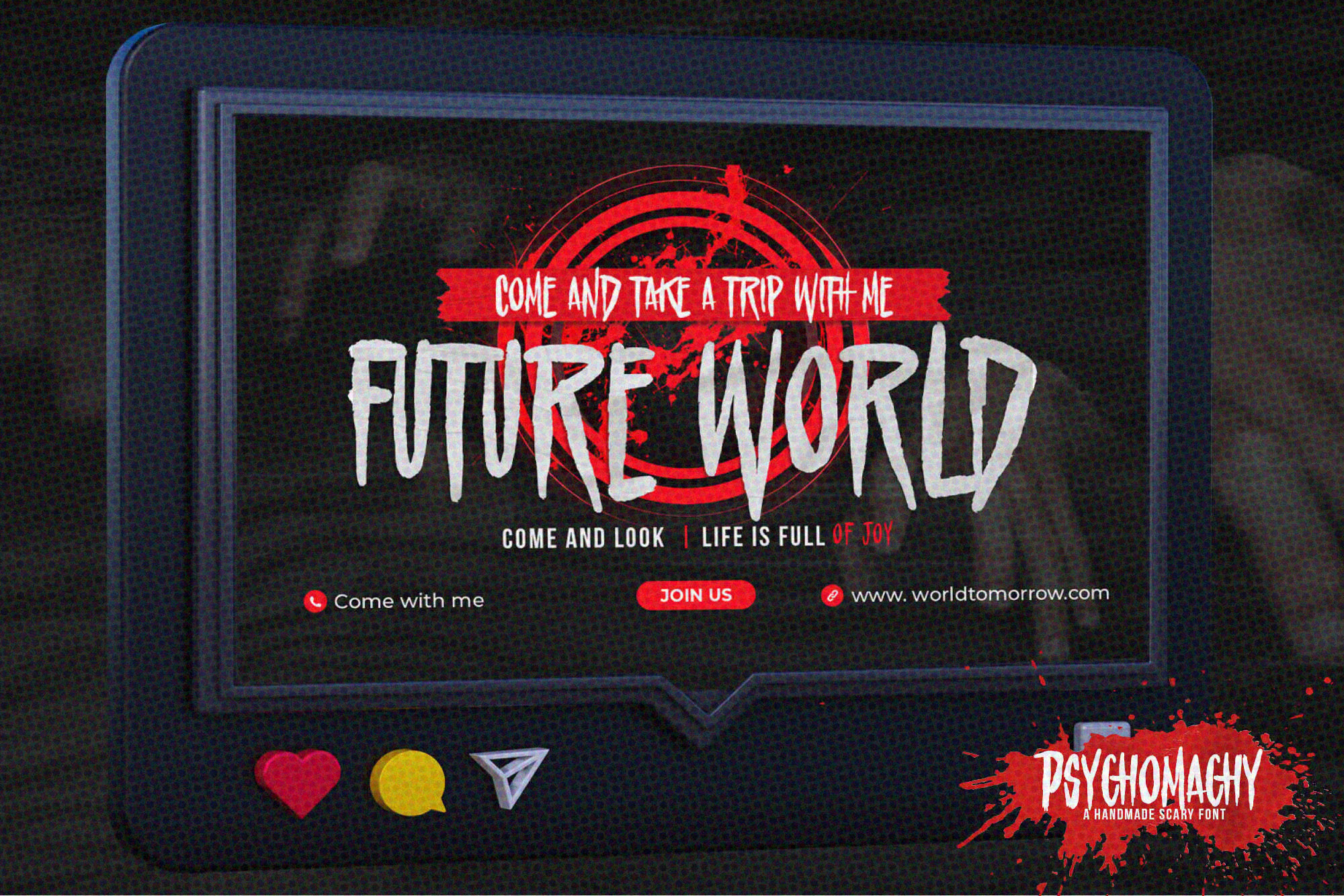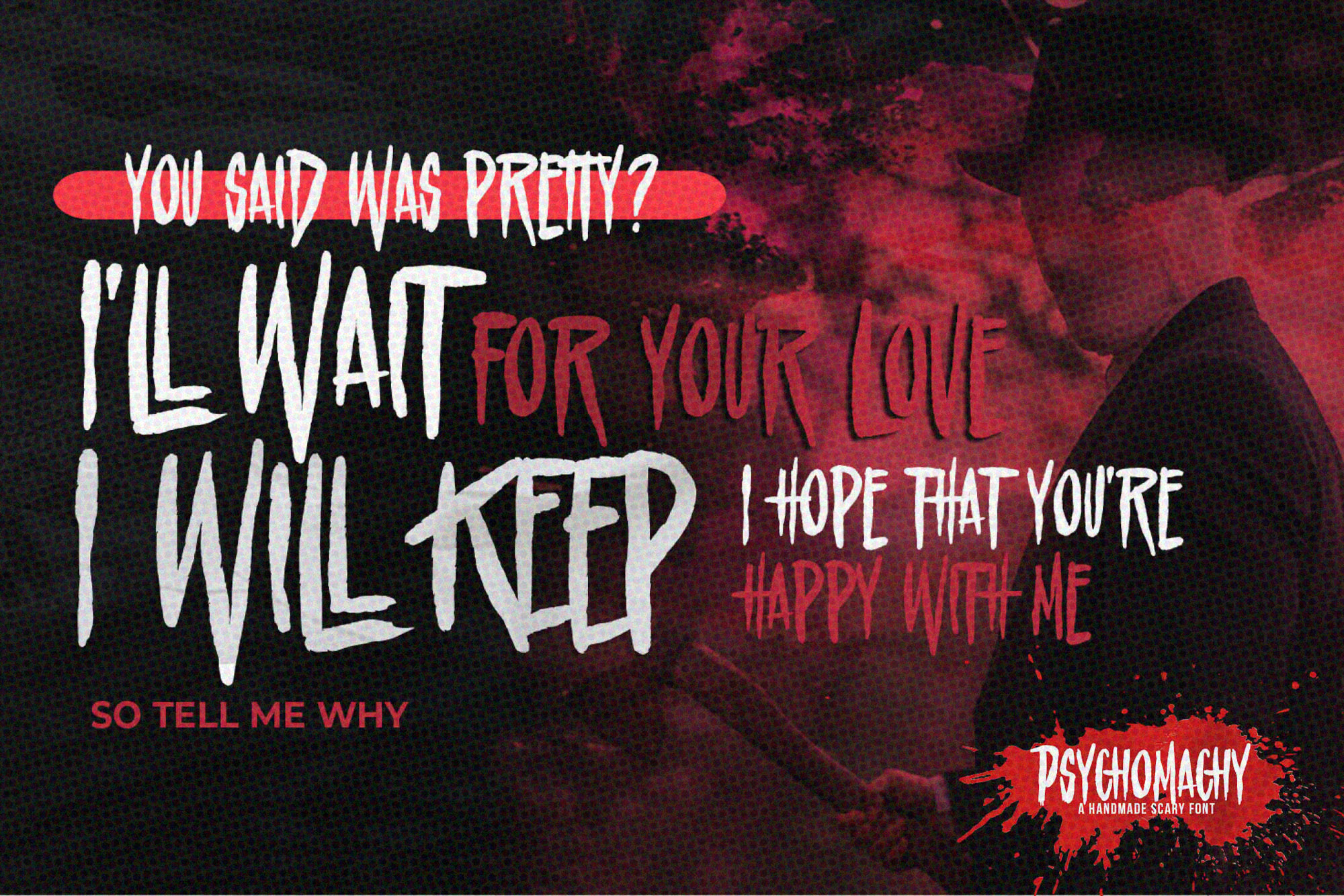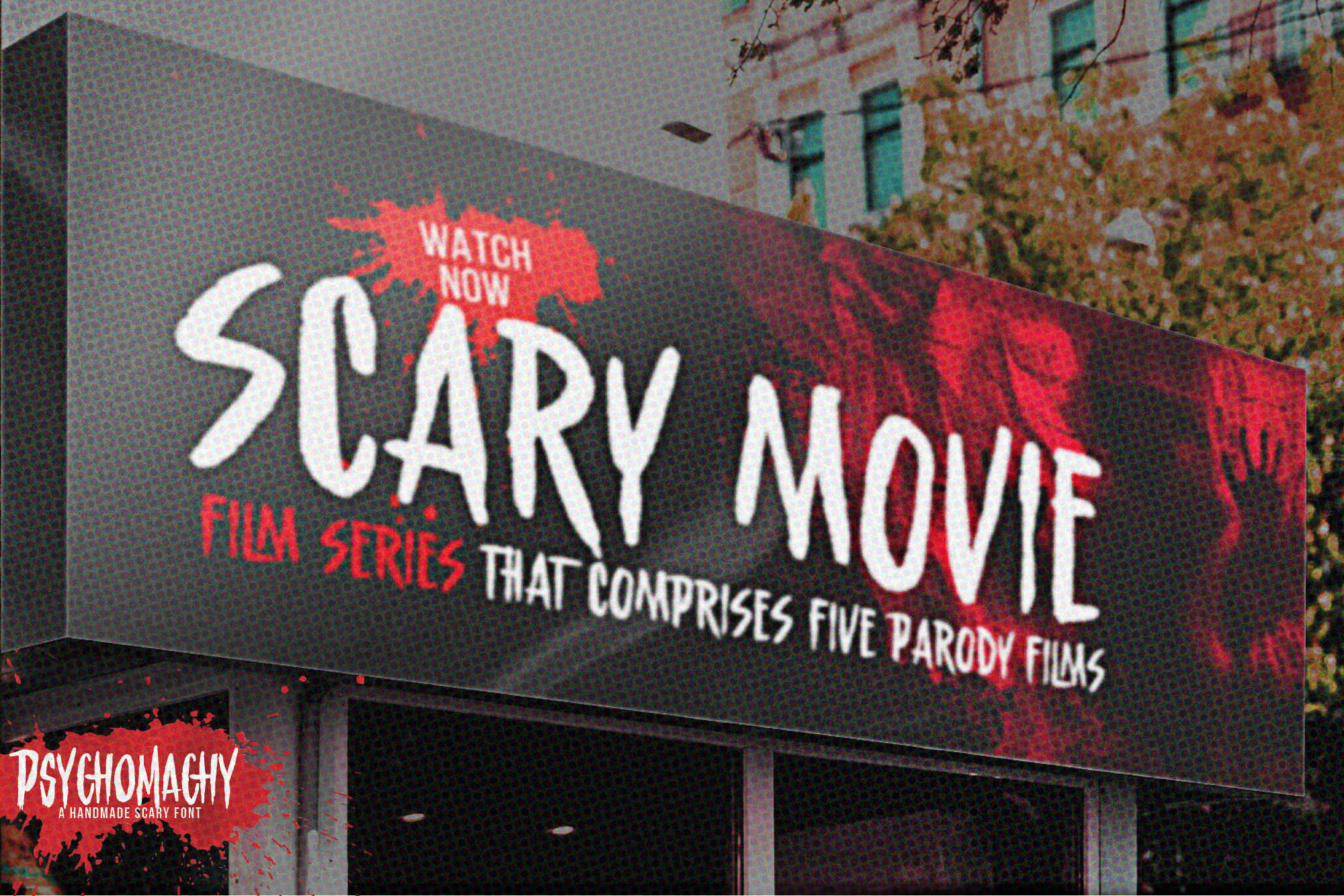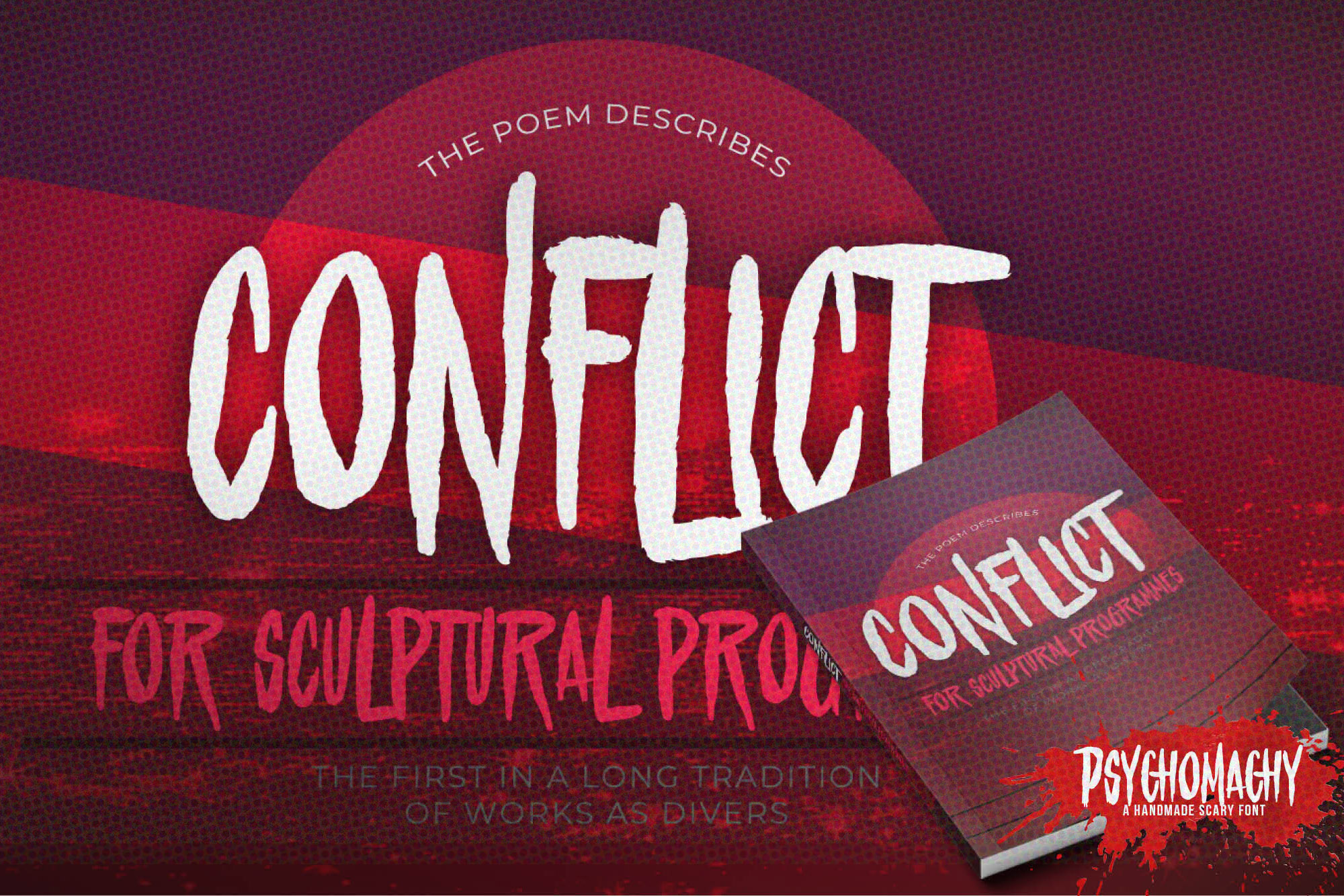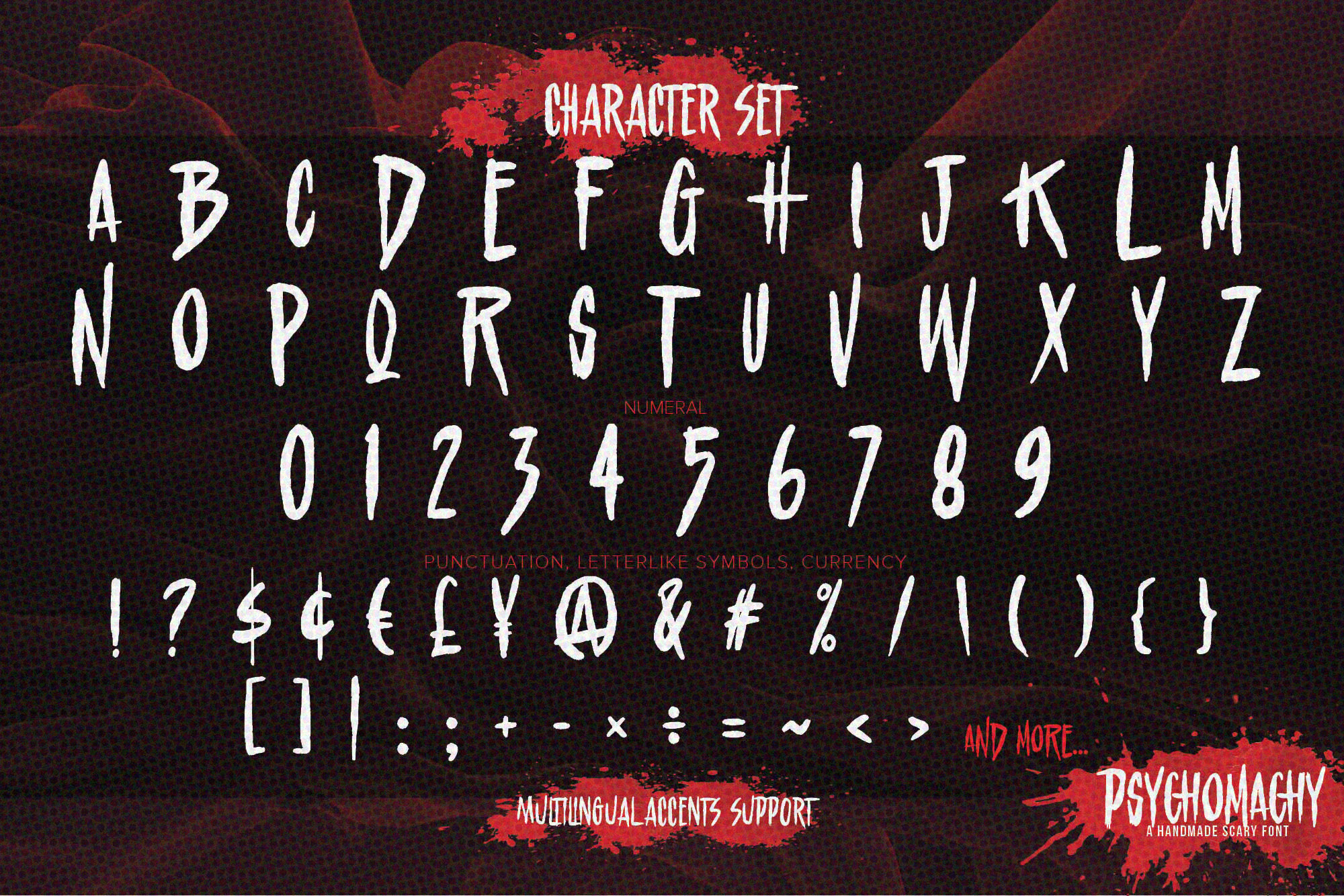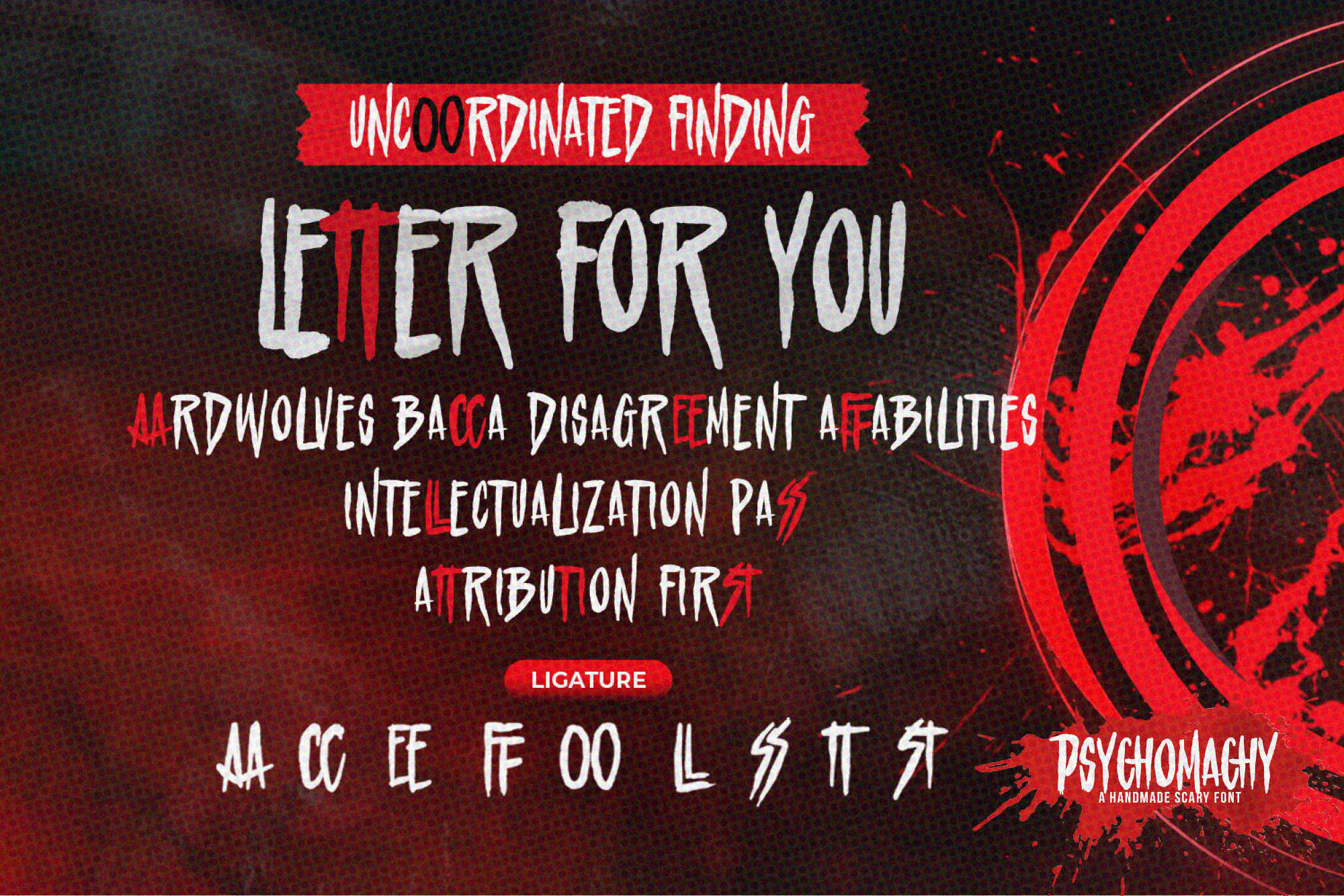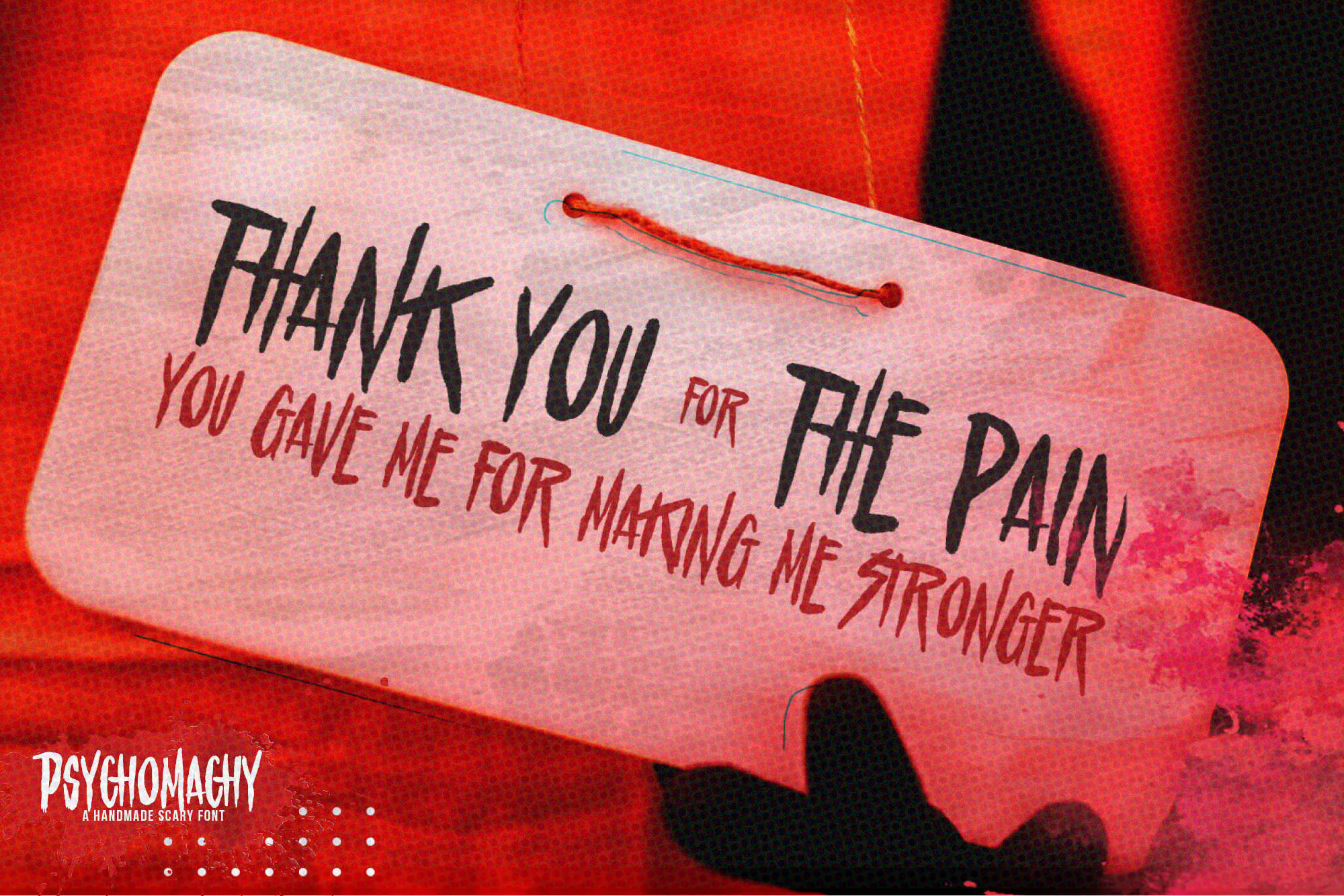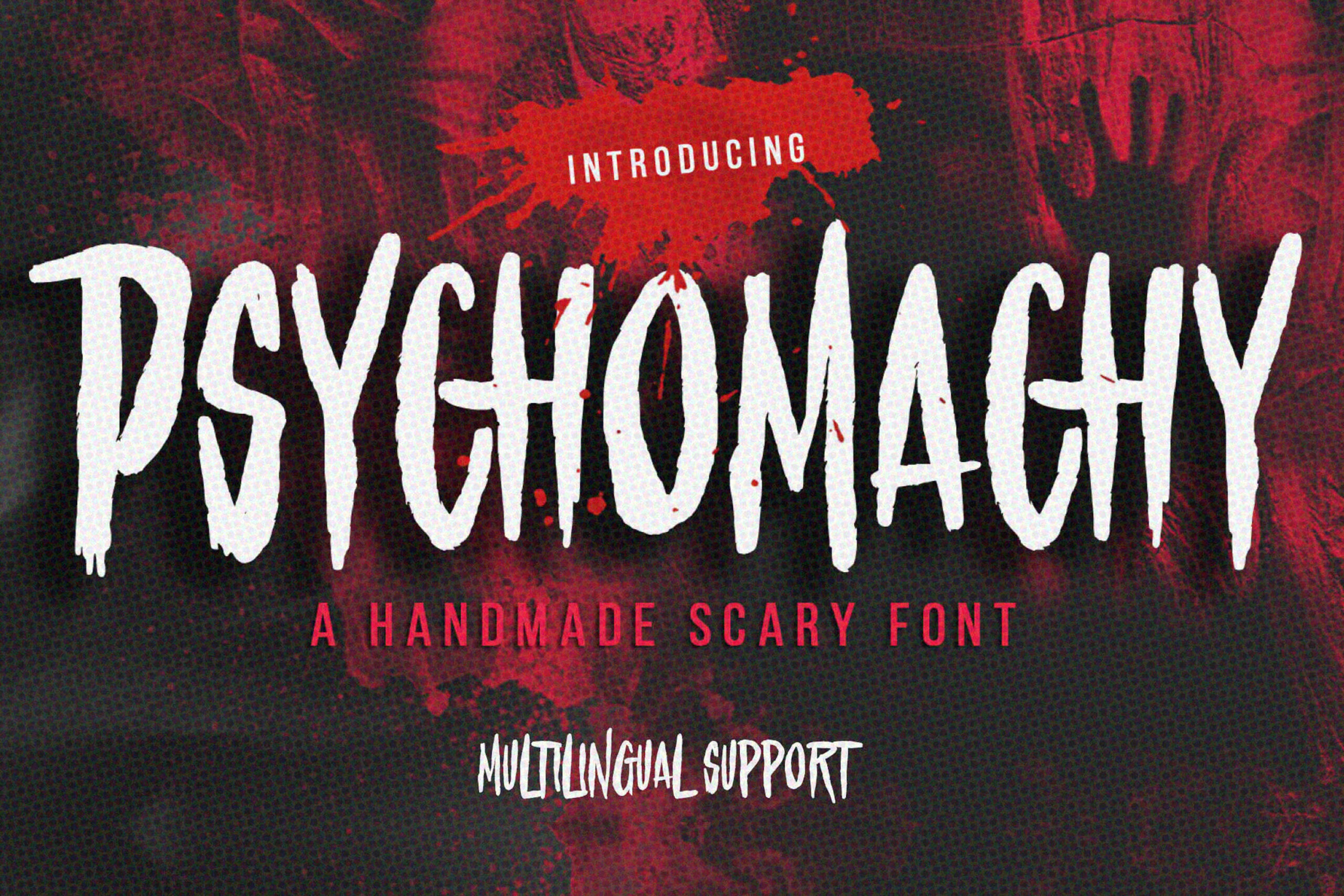
Psychomachy – Handmade Scary Font Typeface is an Modern brush Font that is written casually and quickly.
That is why Psychomachy has a unique, and strong characteristic more natural look.
You can activate Ligatures and Alternates OpenType panel.
Psychomachy Perfect for designs, branding projects, Logo design,Quotes product packaging and another Project that require cool strong brush font.